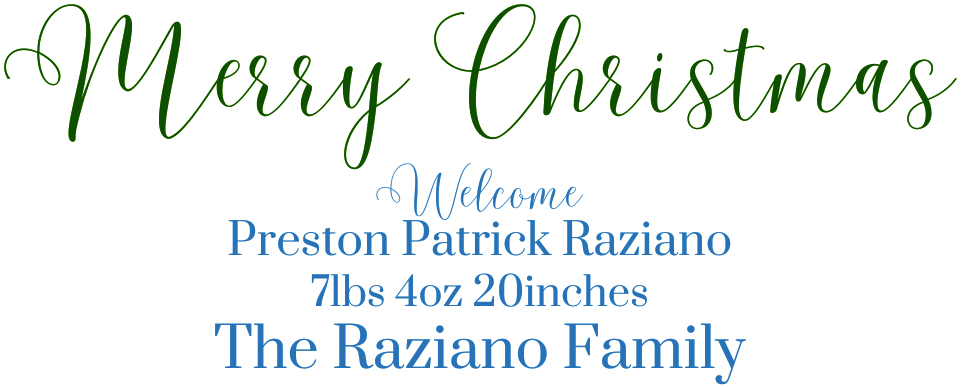
The Script font and
The Serif font - Note the angles on the ends of the "T" "z" and "F", the straight serifs on the "h" "i" "n" "m" "l" and the upturned tails on the "R" "a"
The serif typeface is the Google web font Prata.
The script looks like Malibu Script by Genesis Lab.